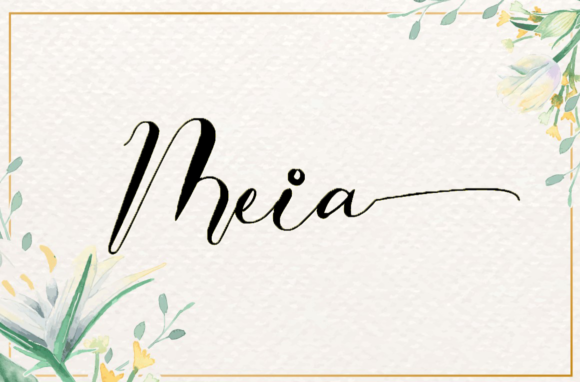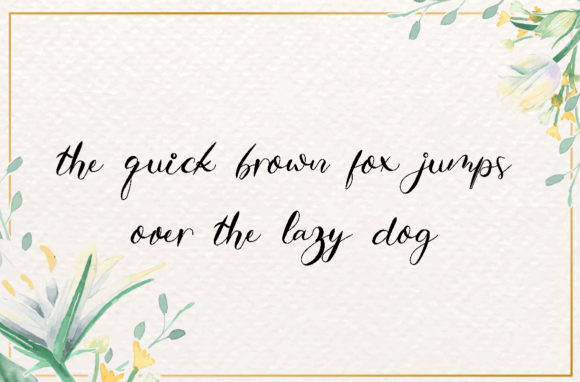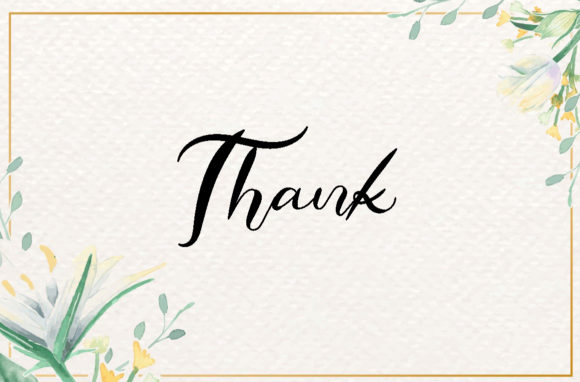
Meia Font
Meia is a timeless and incredibly delicate handwritten font. Fall in love with its magical and versatile style and use it to create spectacular designs!